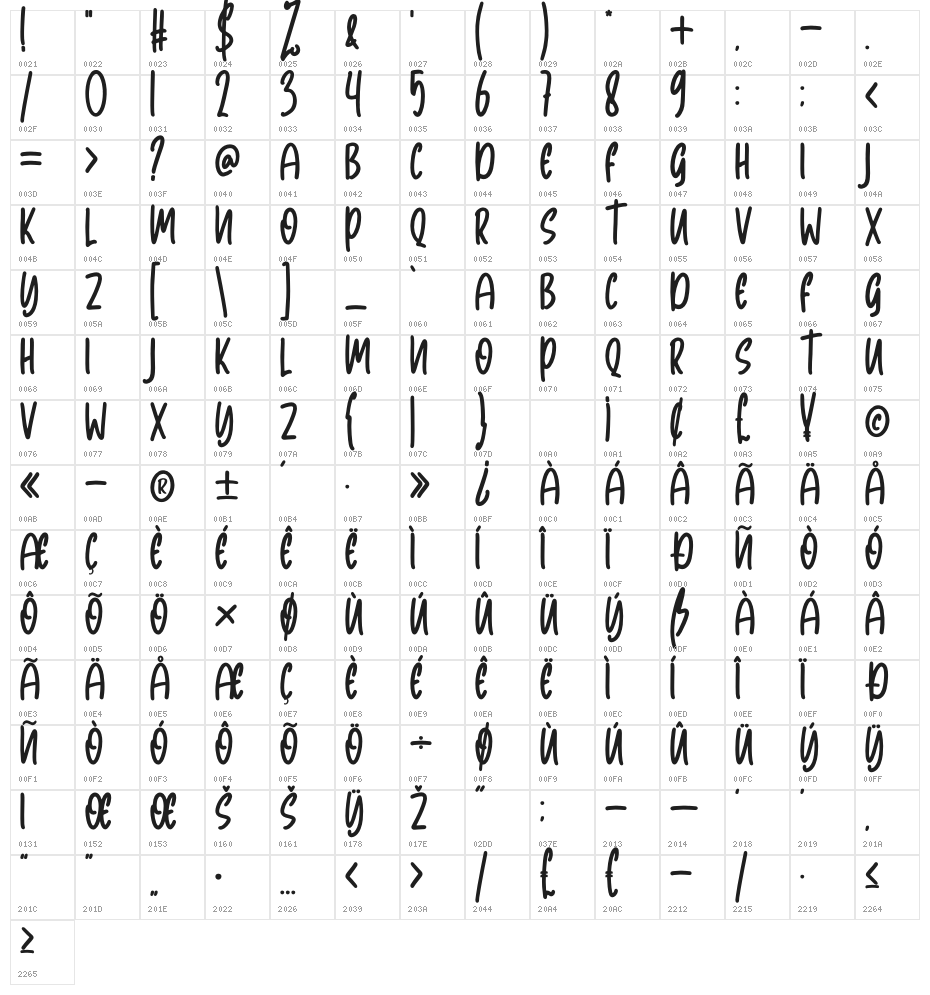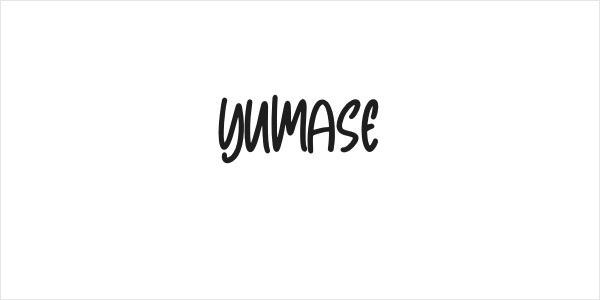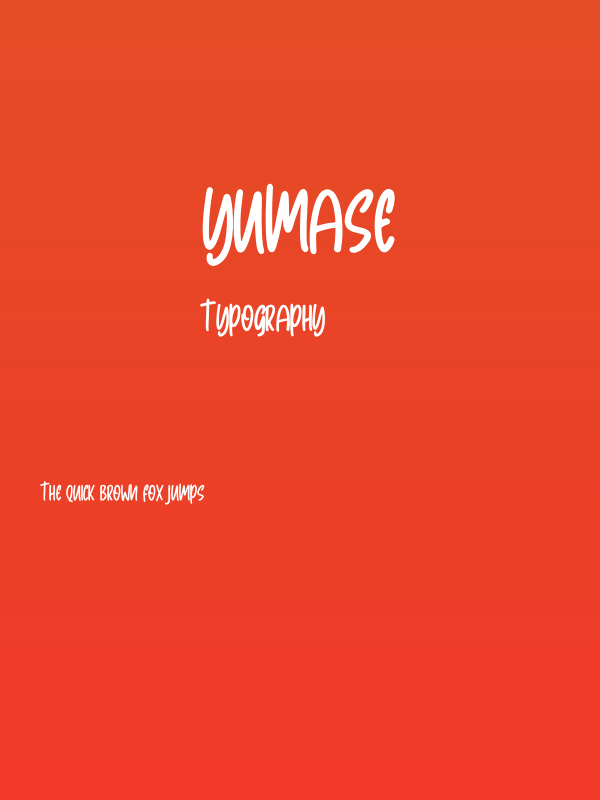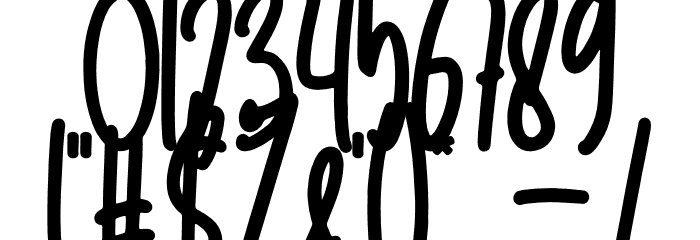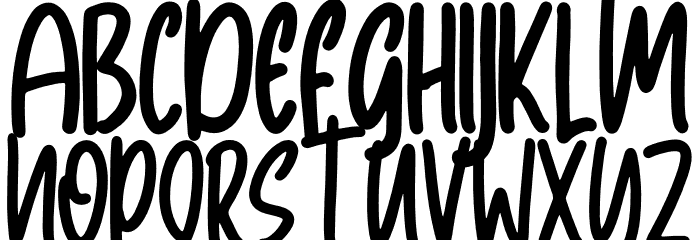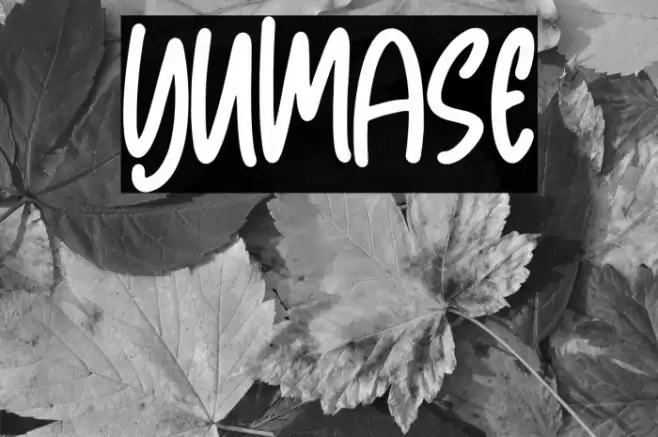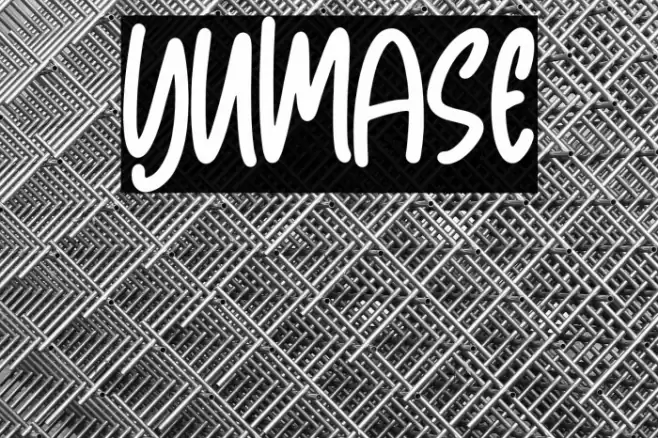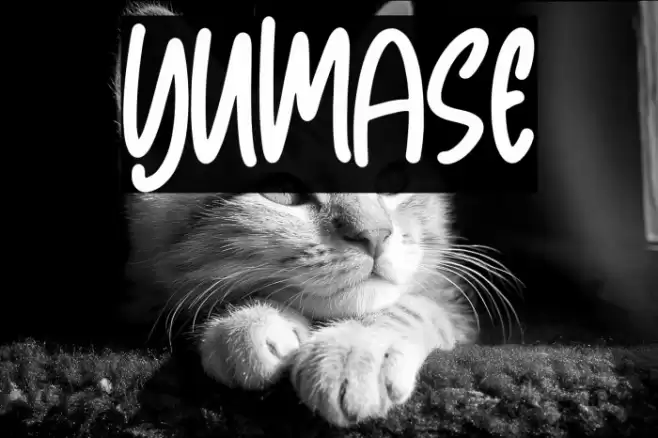
Yumase Font
Yumase Description
This font features a bold and expressive handwritten style, characterized by its tall, narrow letters and fluid strokes. The uppercase and lowercase letters maintain a consistent height, giving the font a cohesive appearance. The characters are slightly slanted, adding a dynamic and energetic feel. The numbers and special characters follow the same style, ensuring uniformity across all elements. The overall design is playful yet legible, making it suitable for various creative applications.
| Overall Style | Modern, Playful |
| Proposed Projects | Ideal for greeting cards, posters, social media graphics, and branding projects that require a personal touch. |